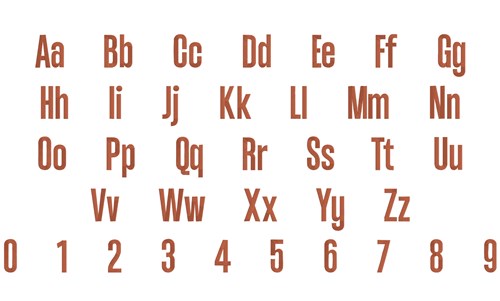
Satin Stripes is happy to present Woodmark Embrilliance Embroidery Font - Classic Block Lettering - BX font machine embroidery font which has Classic block machine embroidery font showcases consistent letterforms, perfect for monograms on garments or home decor items. Available in BX font and other Embrilliance formats. included. If you would like to view more embroidery fonts and alphabets please search our embroidery fonts page.